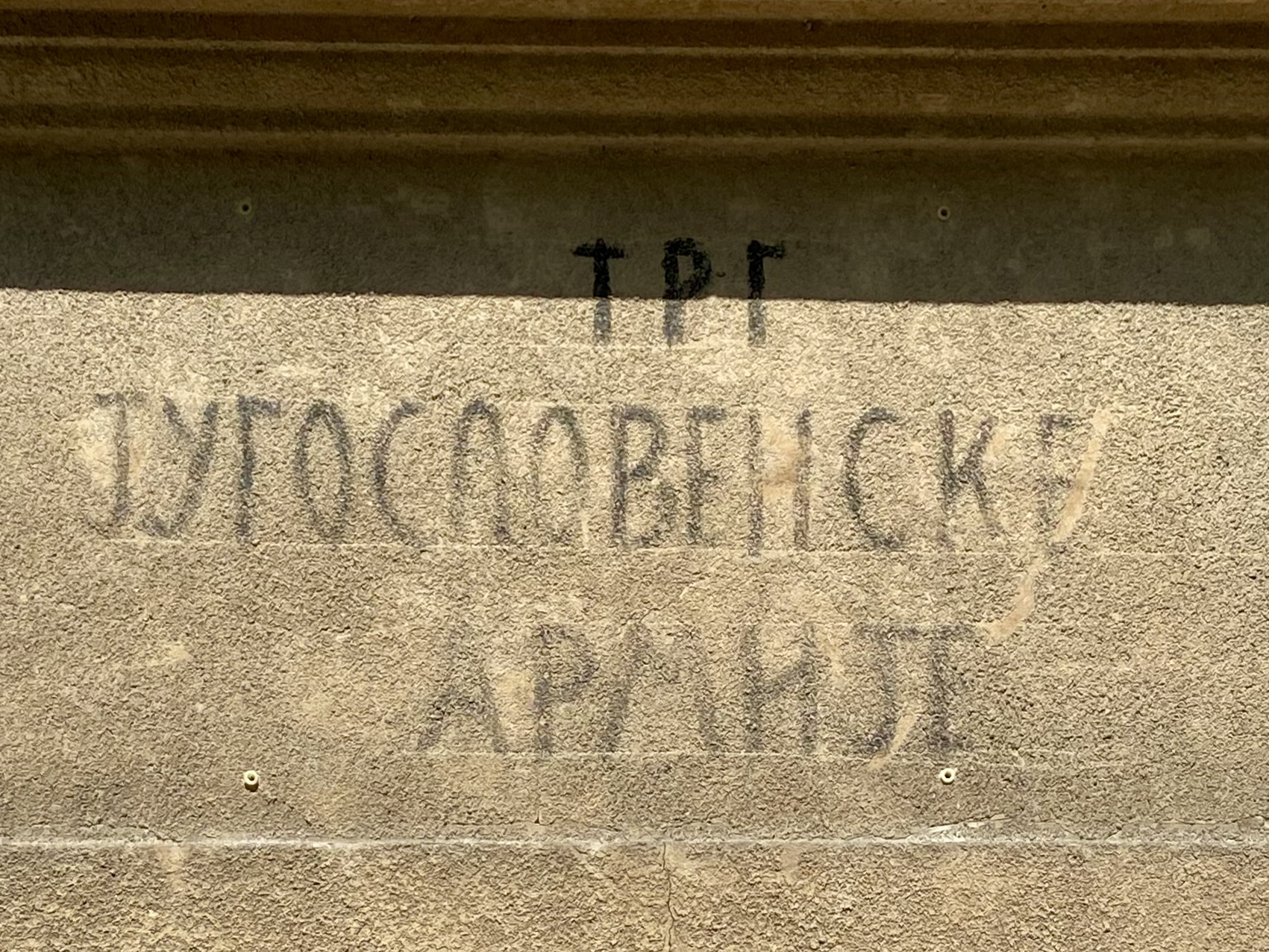
Jugoslovenske Armije Trg
Faded handpainted inscription of the former name of the square.
Before WWII it was called Jugoslovenski Trg, then after the liberation — Trg Jugoslovenske Narodne Armije, and since 1997 - Avijatičarski Trg. Current name is after The Air Force Command office located near the square.